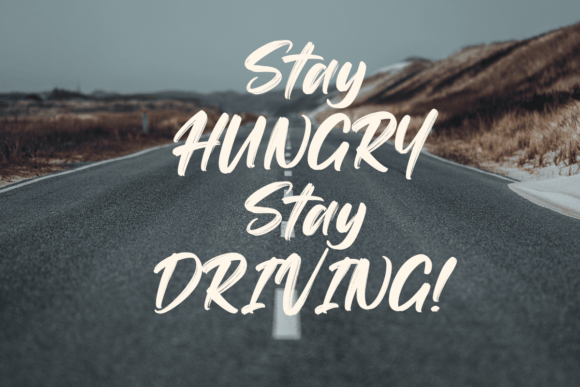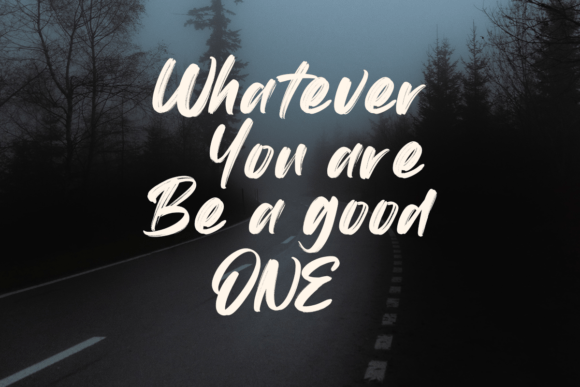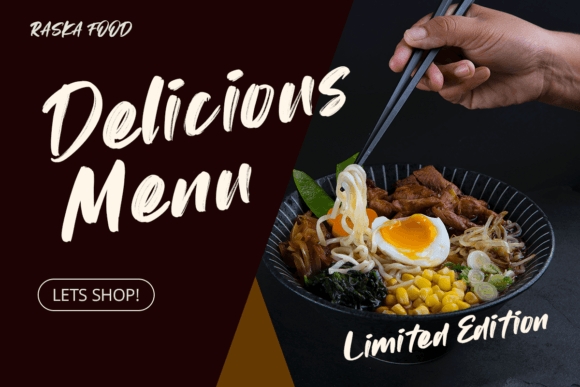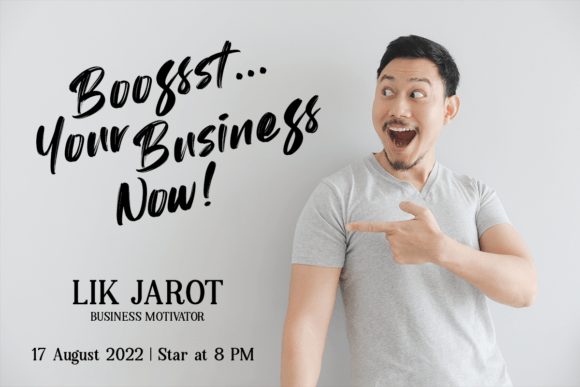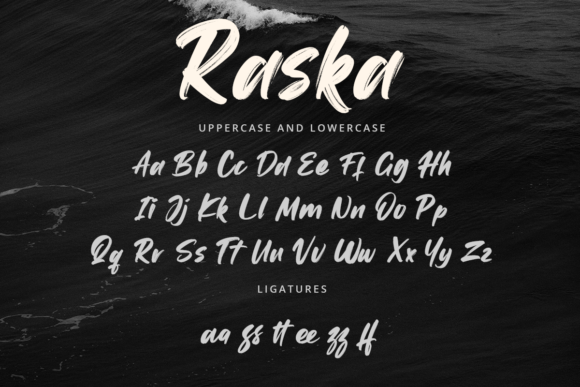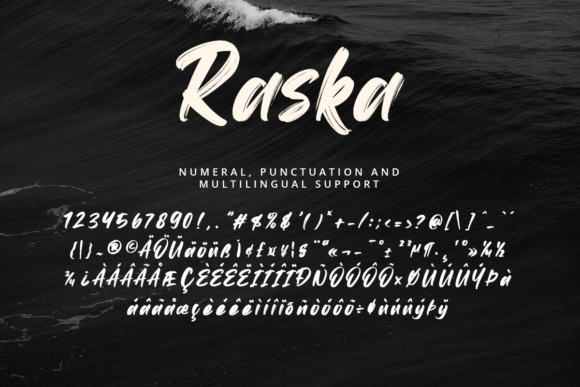
Introduction to Raska Font
Raska is a fresh and modern brush font.
This font is made with care If you want your design to look complete, you can add this font to your design to make it look perfect.
Key Features of Raska Font
Why Choose Raska Font?
Raska Font offers exceptional quality and versatility, making it a valuable addition to your design toolkit. Whether you’re creating for personal projects or commercial use, Raska Font delivers professional results.